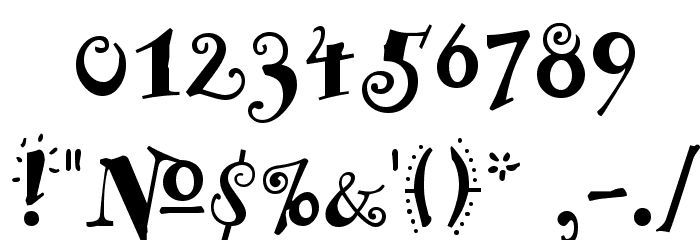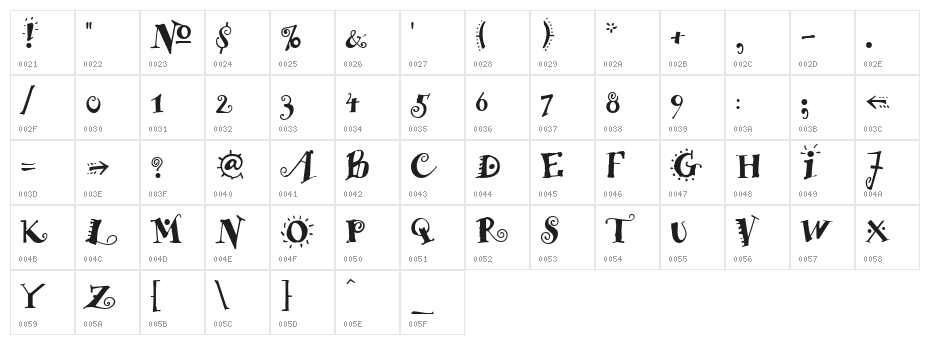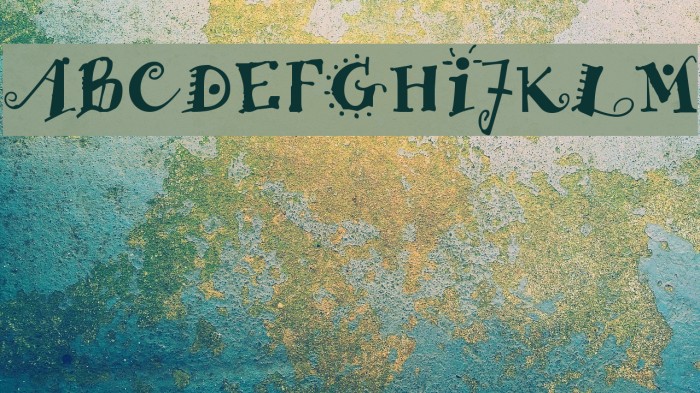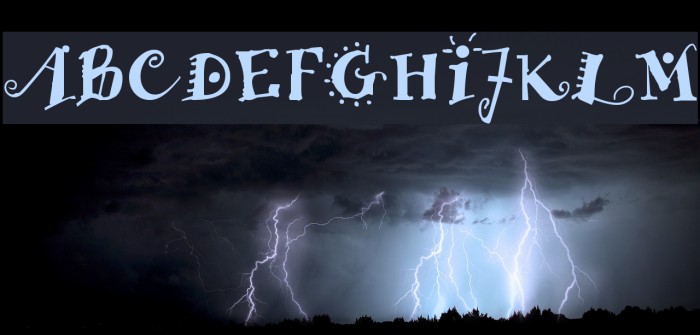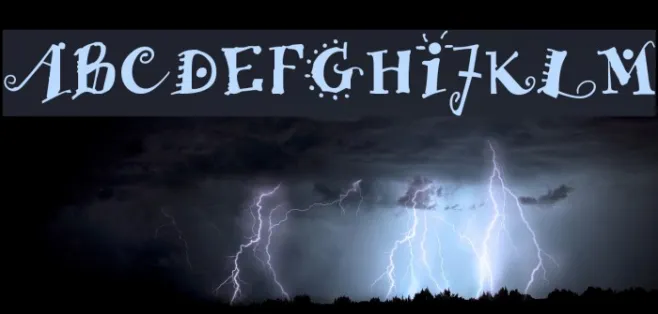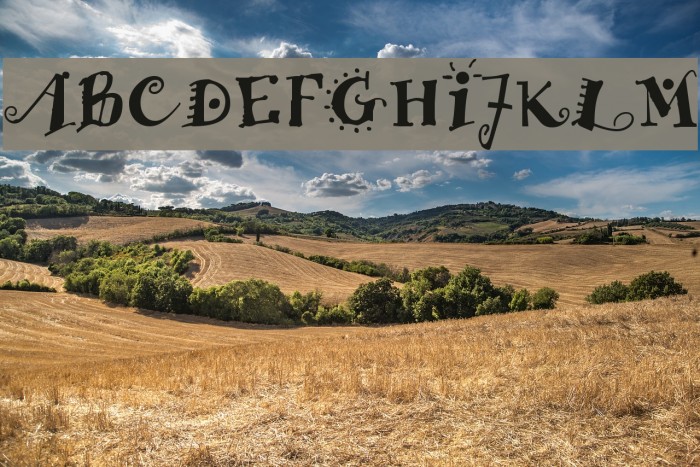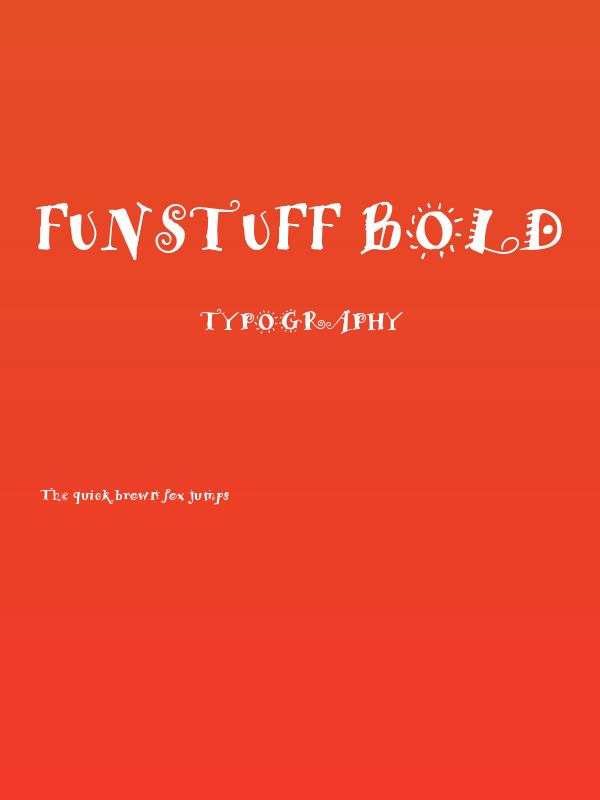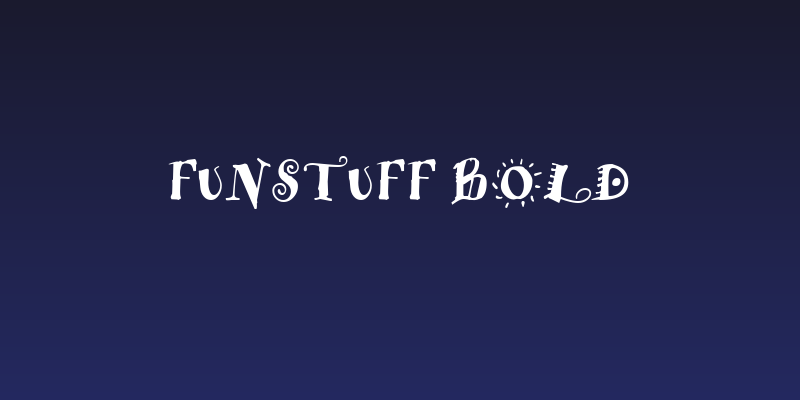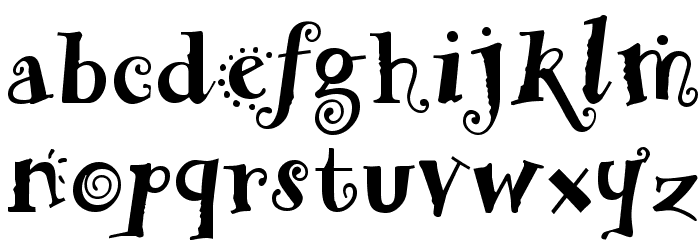
Funstuff Bold Font
Funstuff Bold Description
This playful and whimsical font features a bold and decorative style with unique embellishments on each character. The uppercase letters are adorned with dots, swirls, and spikes, adding a sense of fun and creativity. The lowercase letters maintain a similar playful aesthetic, with varying stroke thickness and quirky details. The numerals and special characters continue this theme, offering a cohesive and lively appearance. This font is perfect for projects that require a touch of whimsy and creativity, making it ideal for children's books, party invitations, and playful branding.
| Proposed Projects | Ideal for children's books, party invitations, playful branding, and creative posters. |